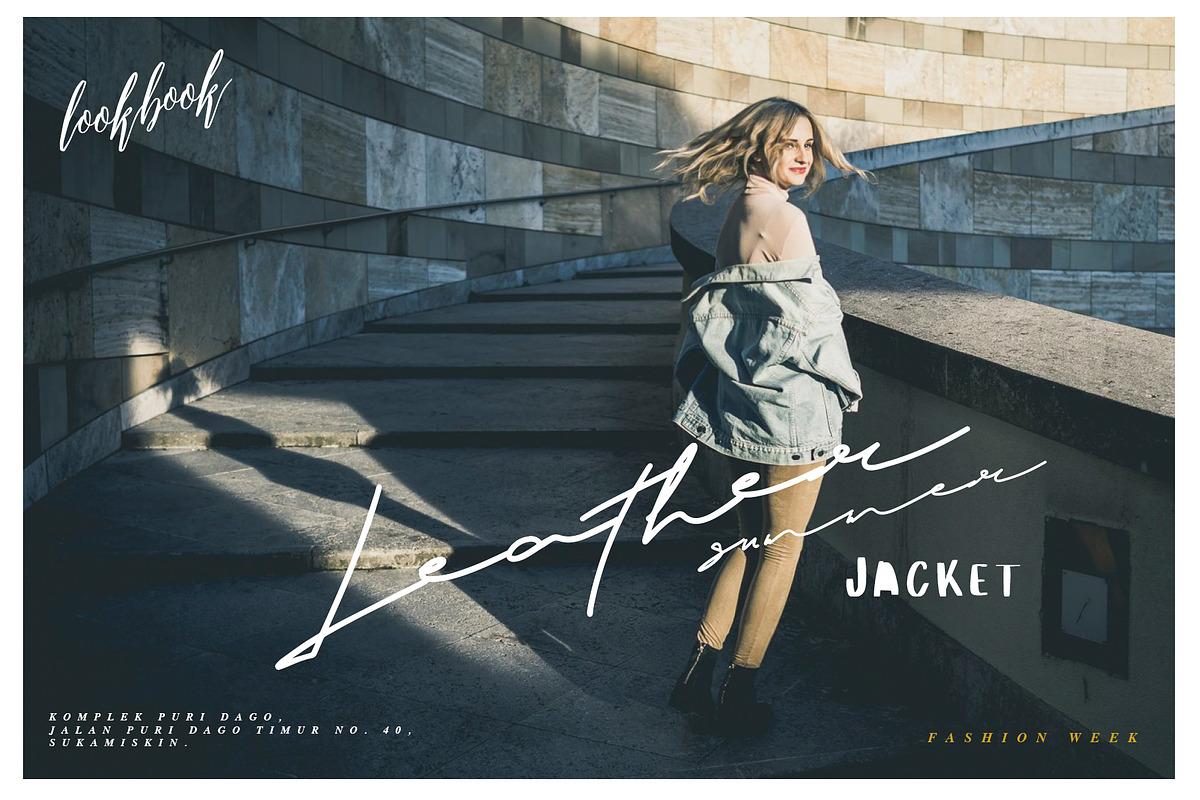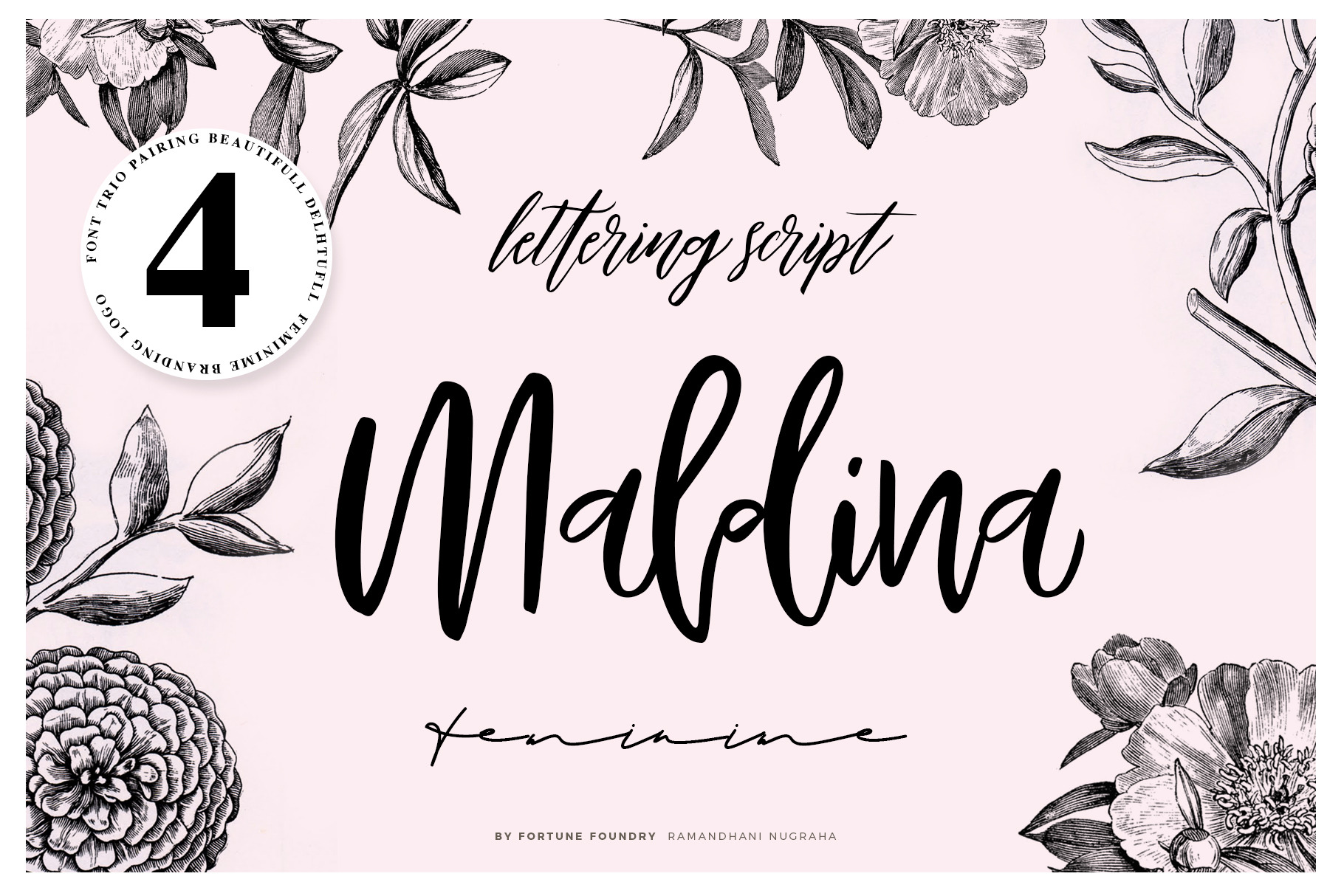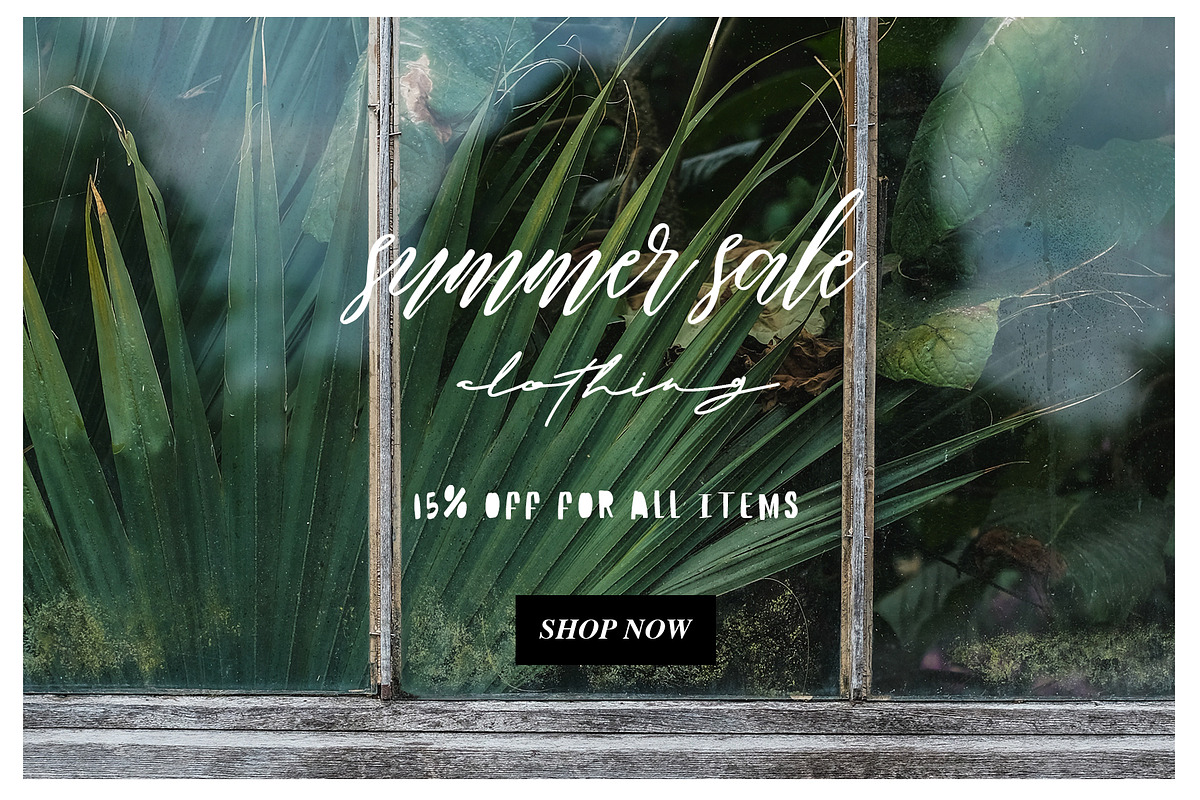
Maldina Feminime (4 fonts)
Maldina handmade typeface is font pairing categories, they made from handmade method, it is perfect for branding, event, invitation card, gift promo card, Quote, Poster, Signature name card, lovely instagram posts, and many more.
Maldina is 4 fonts pairing which is:
- Maldina Regular
- Maldina Script
- Block
- Signatra
Everyfonts is very subtle one by one, its perfect match. You will love it all.